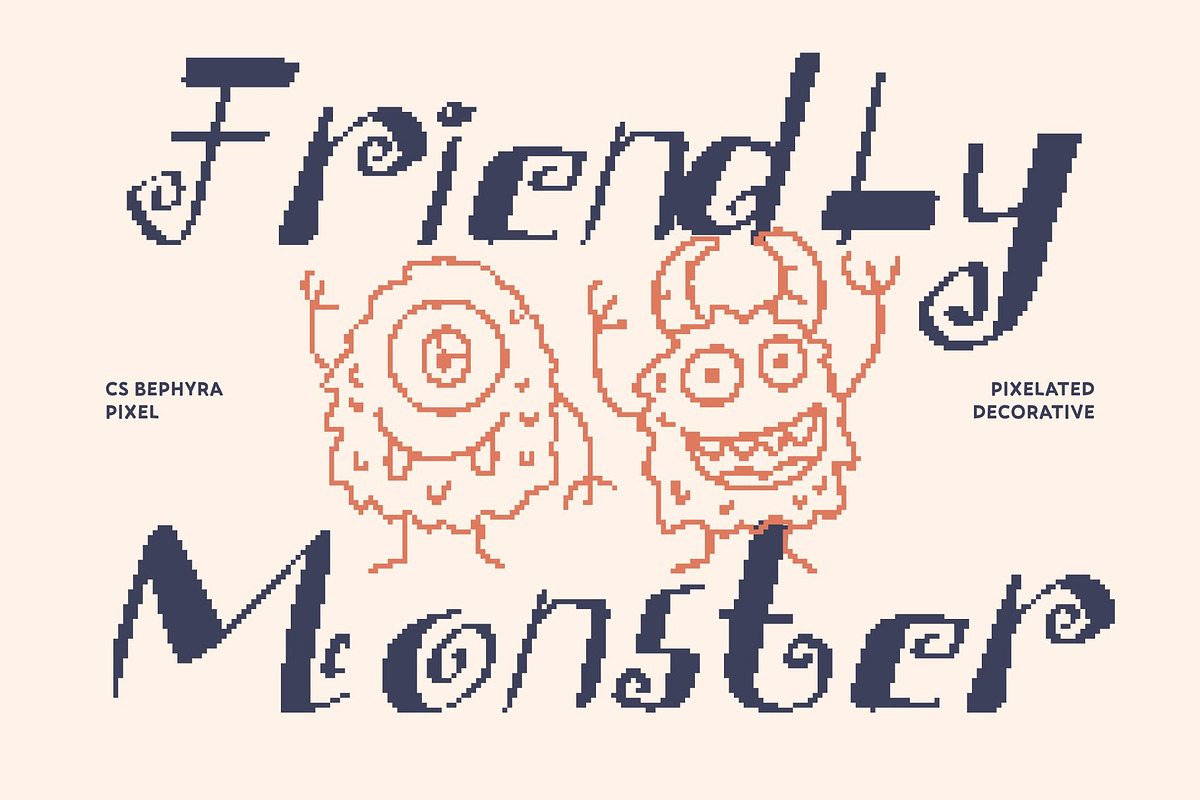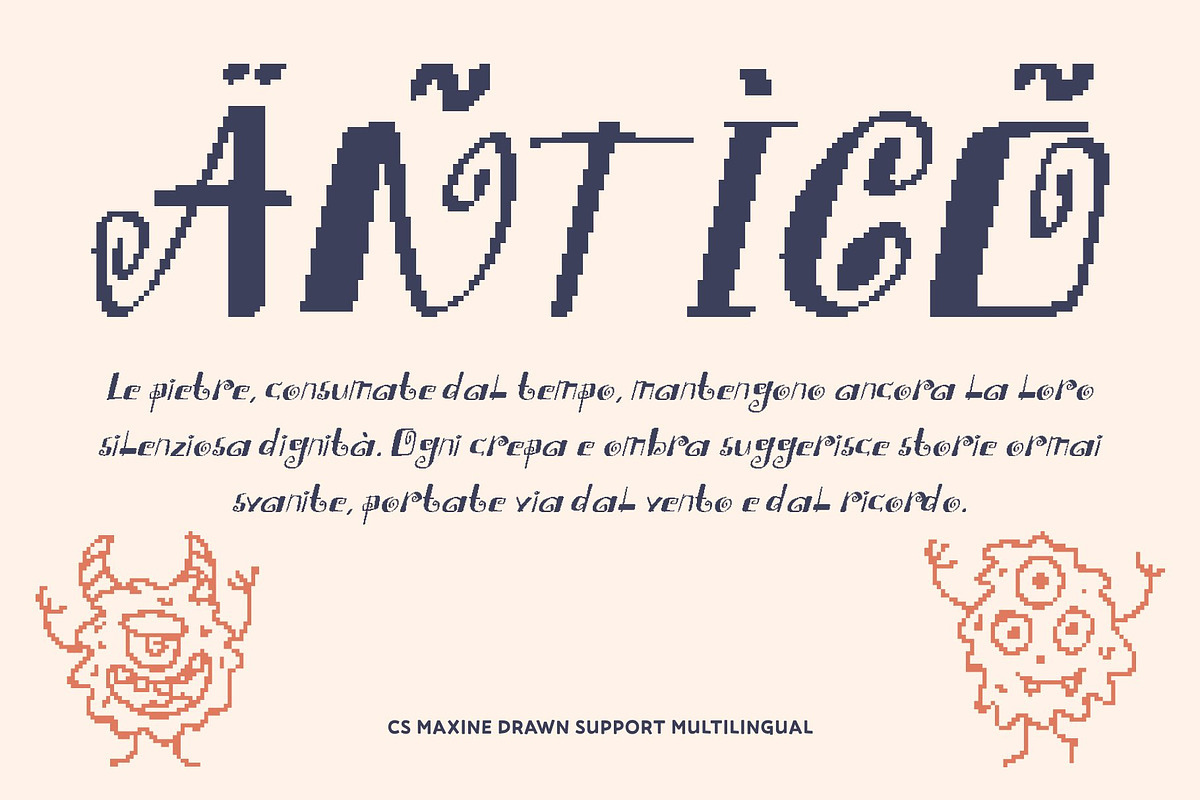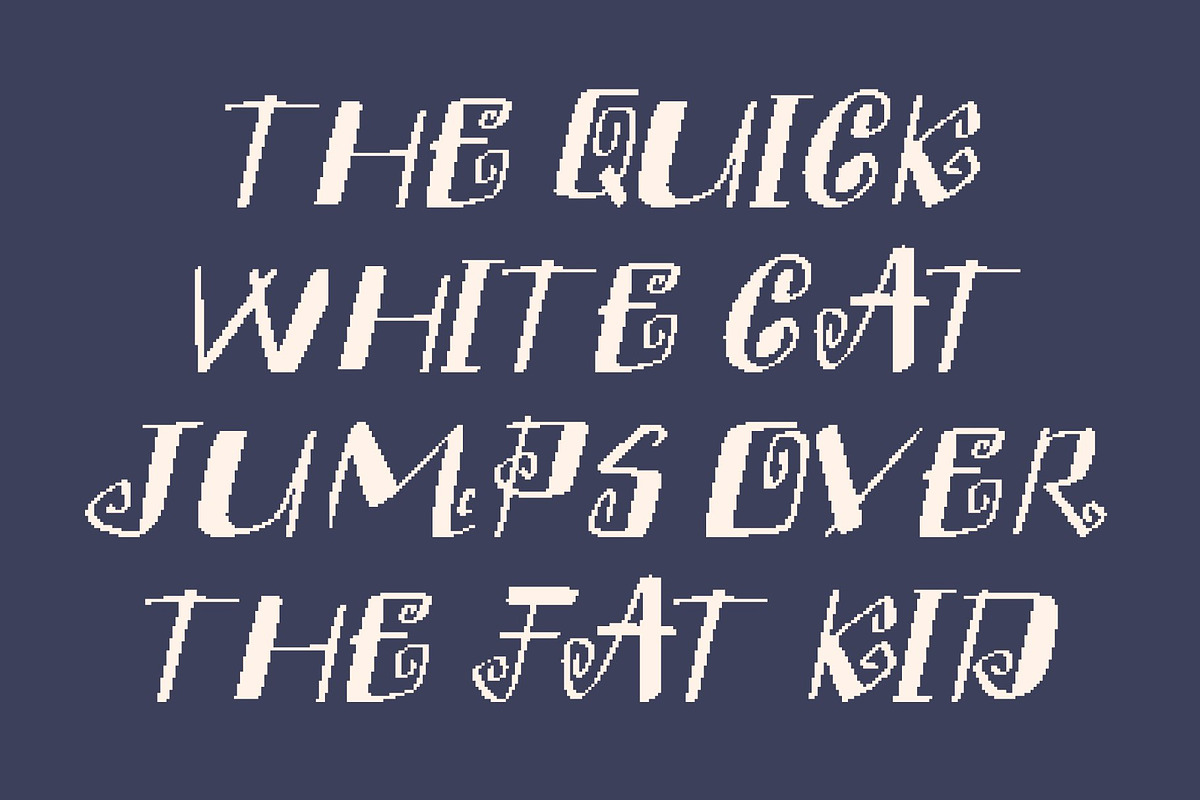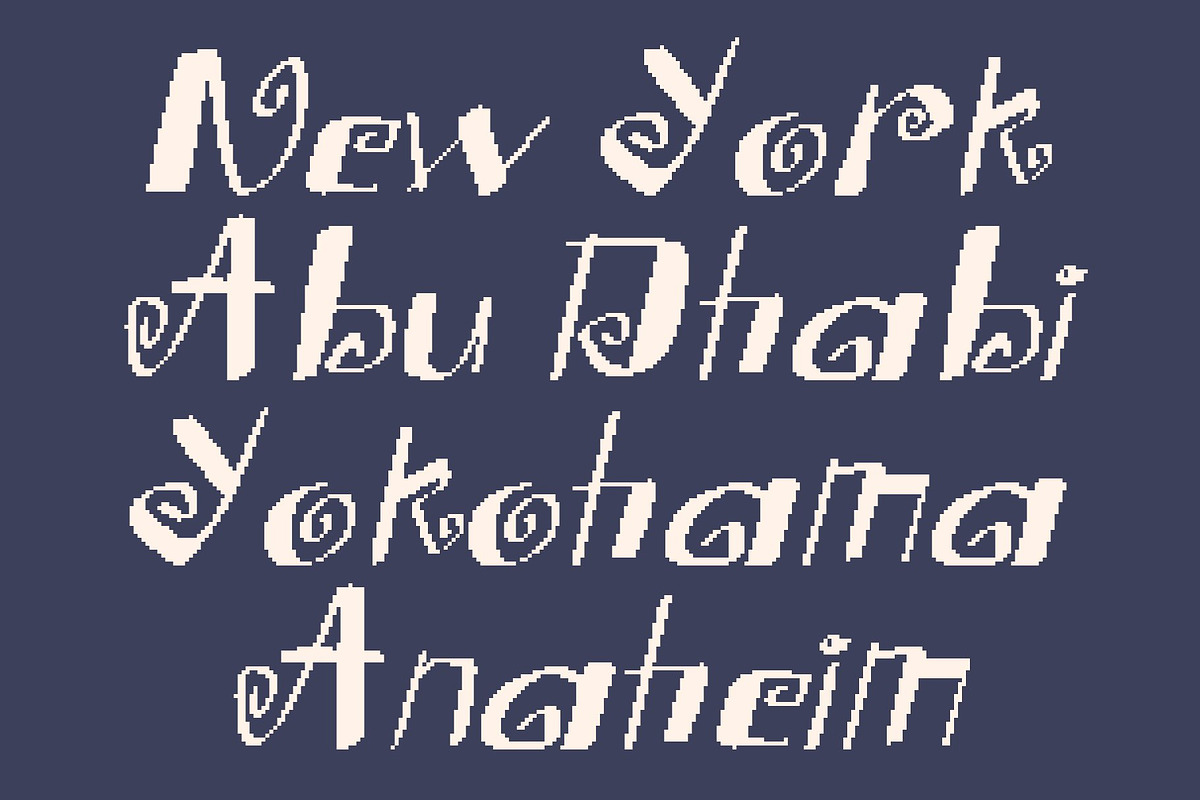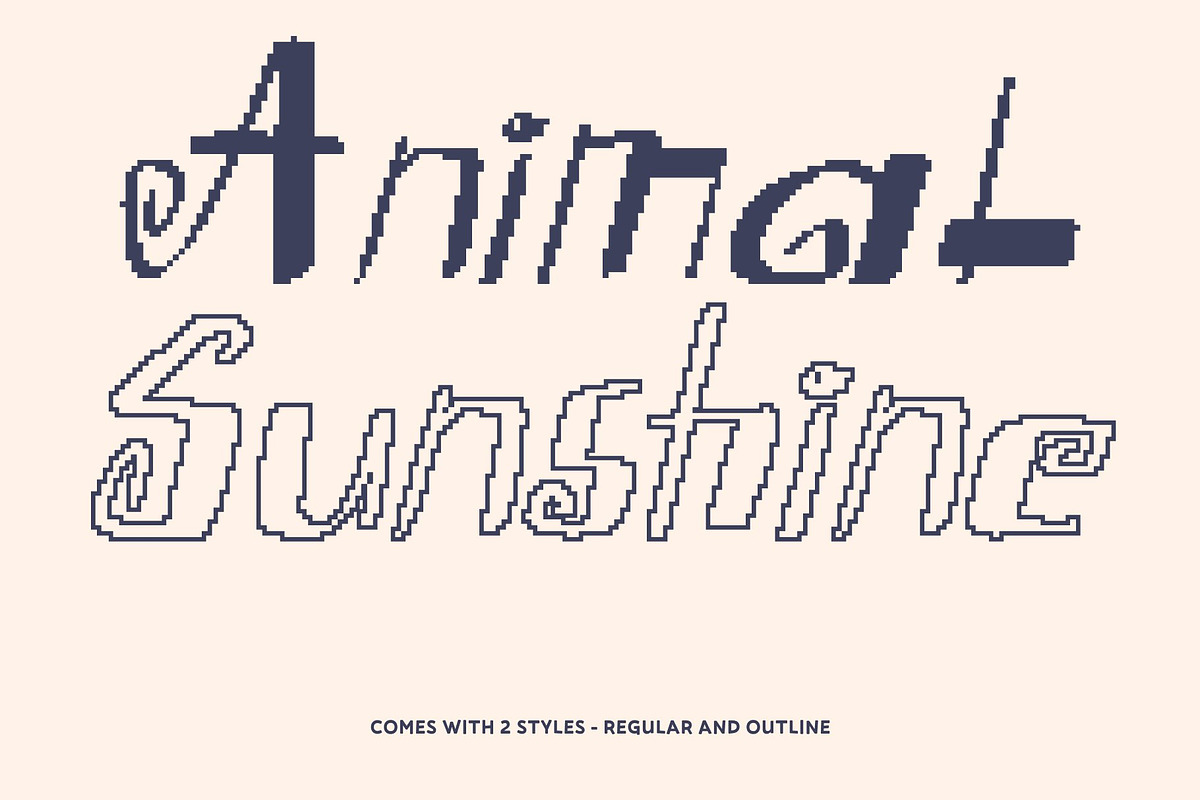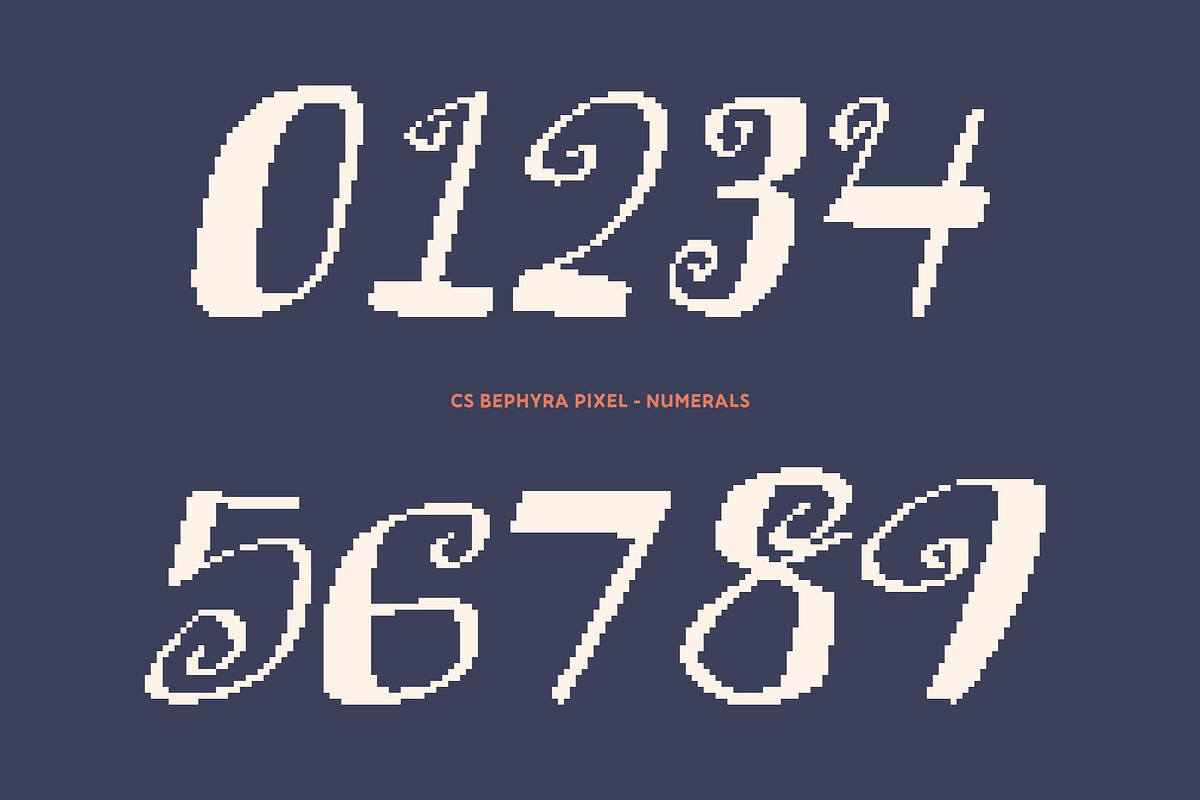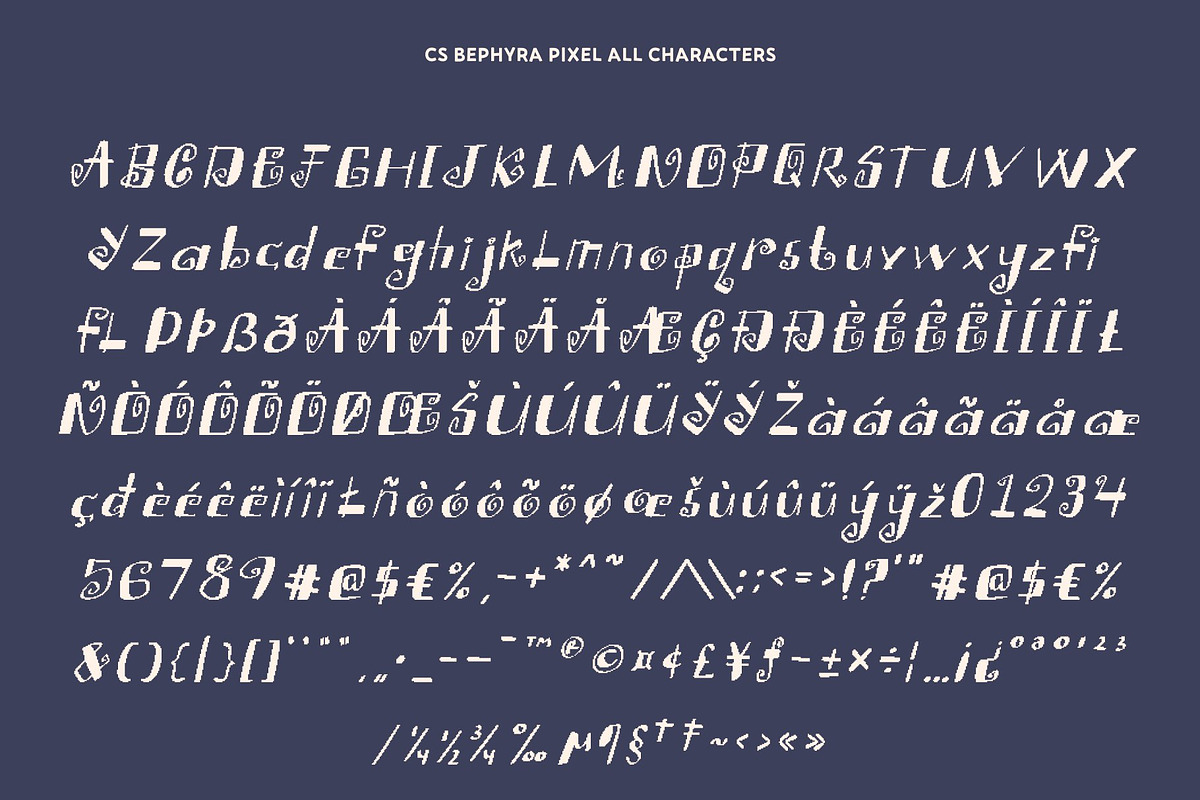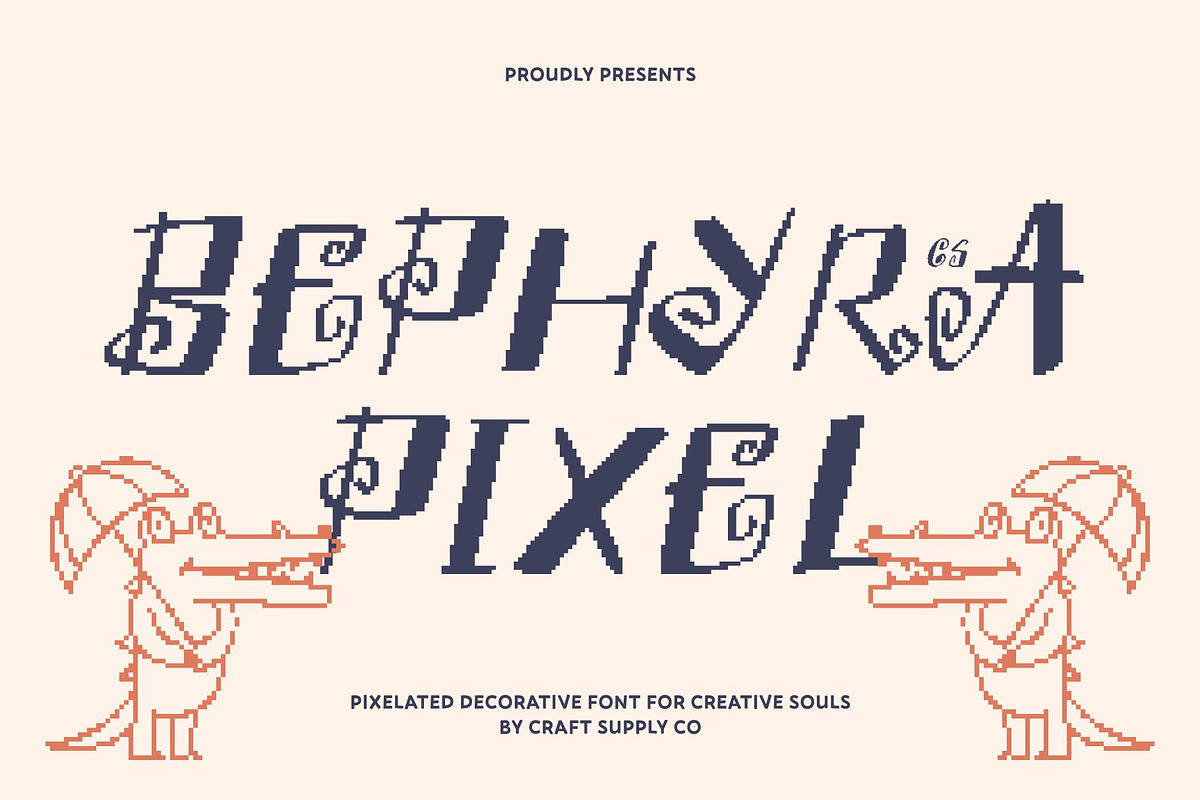
CS Bephyra Pixel
CS Bephyra Pixel – Whimsical Storybook display with Magical Retro Charm
Storybook Imagination in Pixel Form This is a whimsical storybook display font designed to spark imagination and playful storytelling, now reimagined through a pixel-style lens. Its soft curves and friendly shapes are built from pixel structures, creating a charming blend of fairytale warmth and retro digital aesthetics. The result feels magical, nostalgic, and joyful like a storybook brought to life on an old 8-bit screen.
Soft Curves with Friendly Pixel Expression The rounded sans serif forms give this font a gentle, approachable personality, while the pixel construction adds a classic old-digital feel. Each character maintains clarity and readability, even with its playful shapes. This balance between softness and structure makes the font expressive without being overwhelming, perfect for designs that need warmth, fun, and visual clarity.
Decorative Fantasy with 8-Bit Nostalgia Subtle decorative details enhance the font’s fantasy-inspired character, while the pixel style introduces a retro gaming and early-computer vibe. This combination gives every word a sense of motion and charm, blending handcrafted storytelling with classic digital nostalgia. The font feels lively, animated, and full of personality.
Perfect for Kids, Fantasy, and Retro Playful Design This font is ideal for children’s books, fairy-tale themes, playful branding, educational visuals, and retro-inspired designs. From storybook covers and magical posters to pixel-art projects and creative digital content, this font delivers joyful imagination with a nostalgic 8-bit twist.